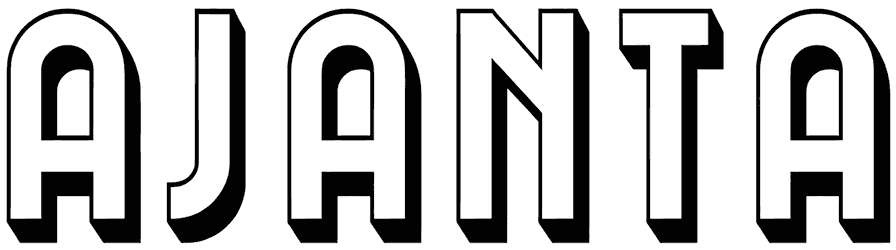
Ajanta Font
Ajanta is a playful font for when you want a shadow font to match the tone of your event, but don’t want it to steal the show entirely. This outline font has a childlike style with round lines that reduce the pressure on the eyes and can decorate it beautifully without affecting the content’s message.
The 3D lettering design makes it stand out even without having small letters in posters, advertisements, and banners with large dimensions.